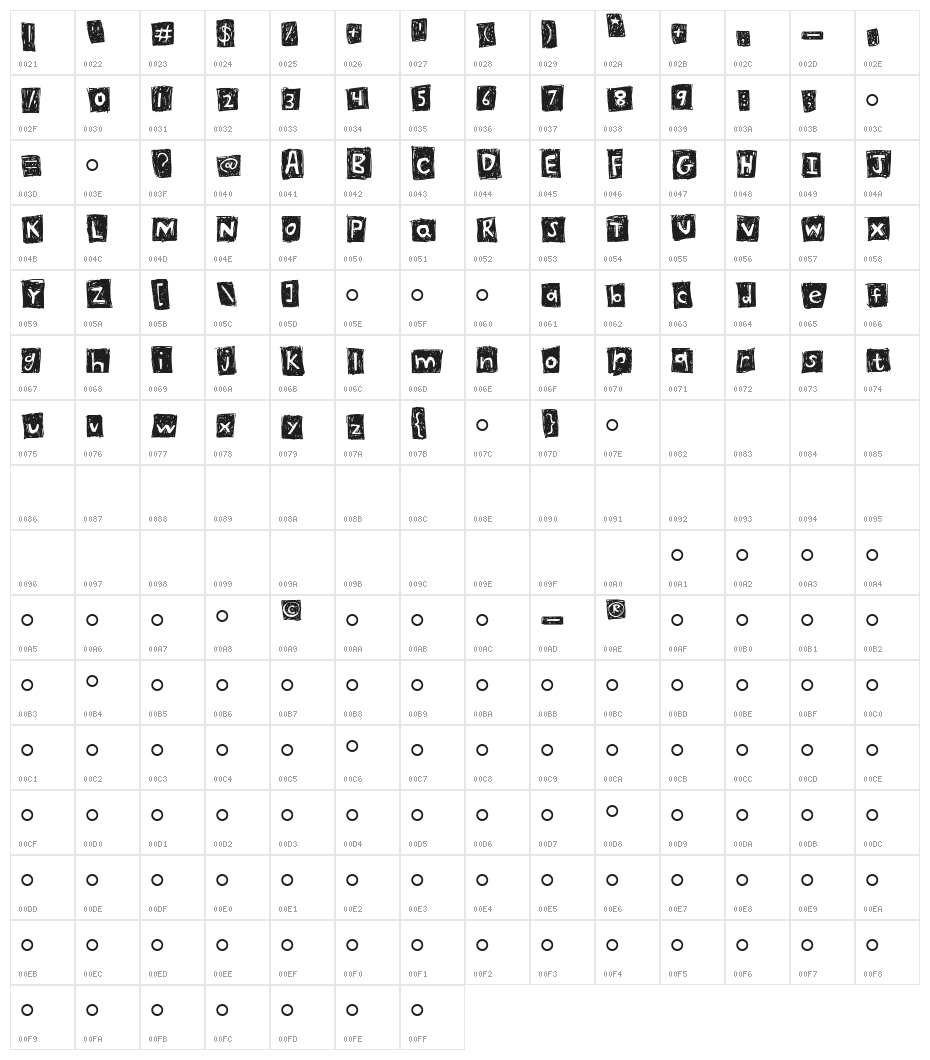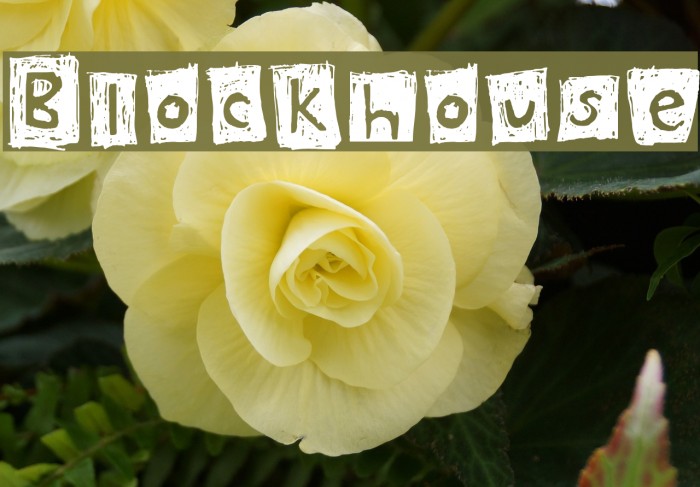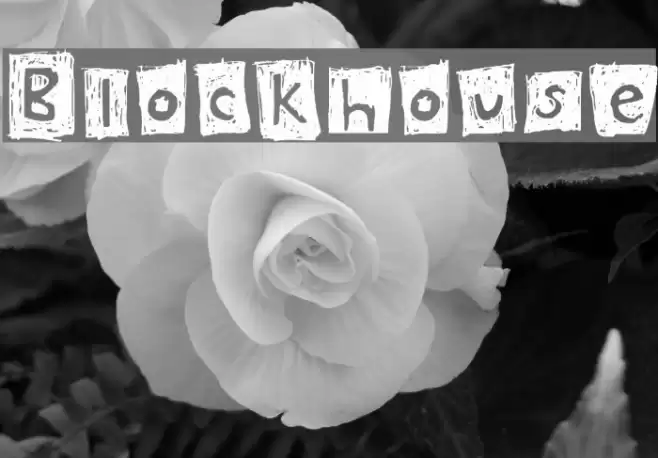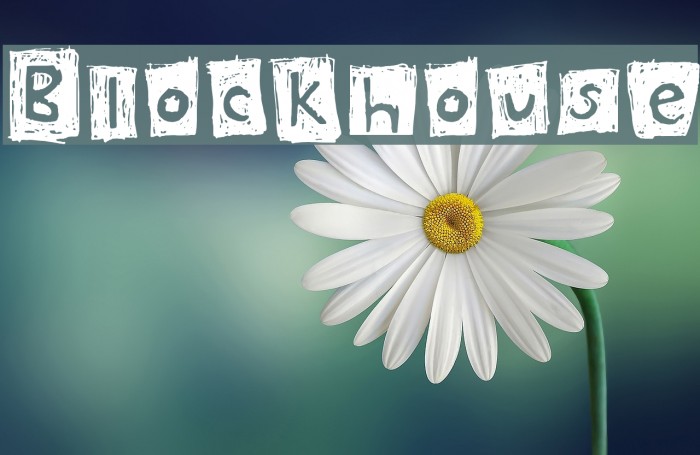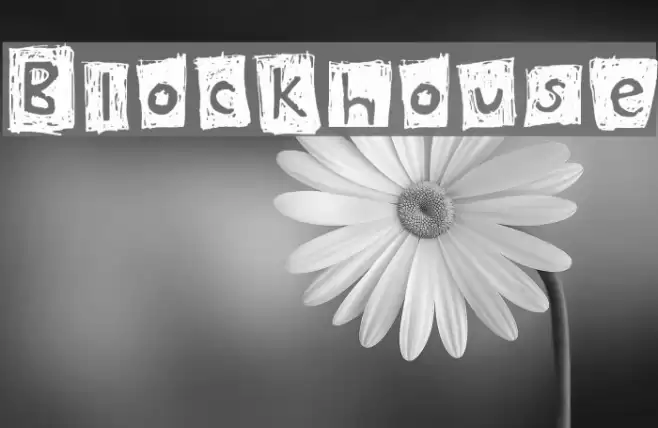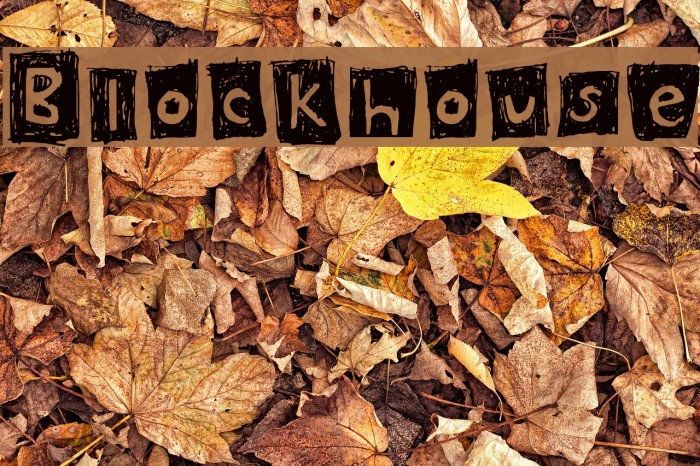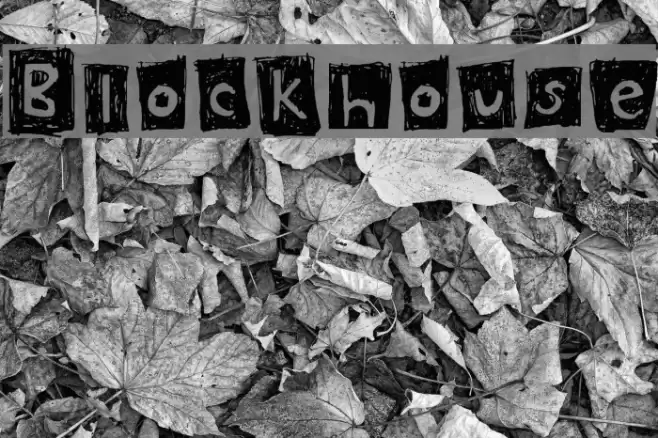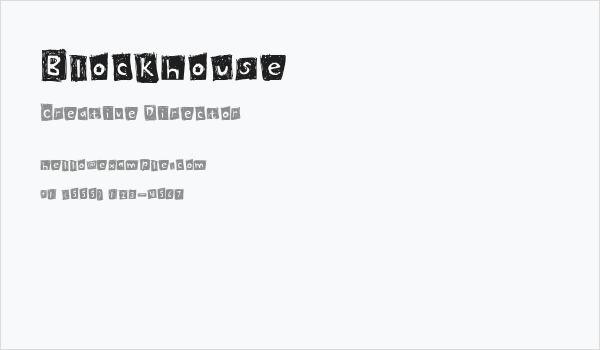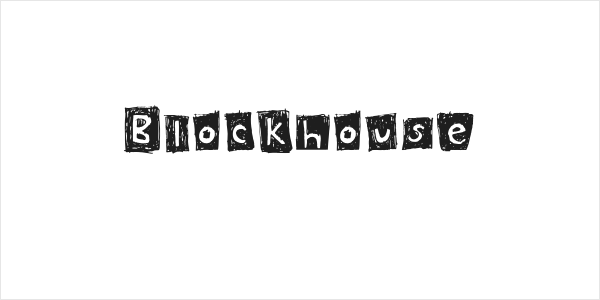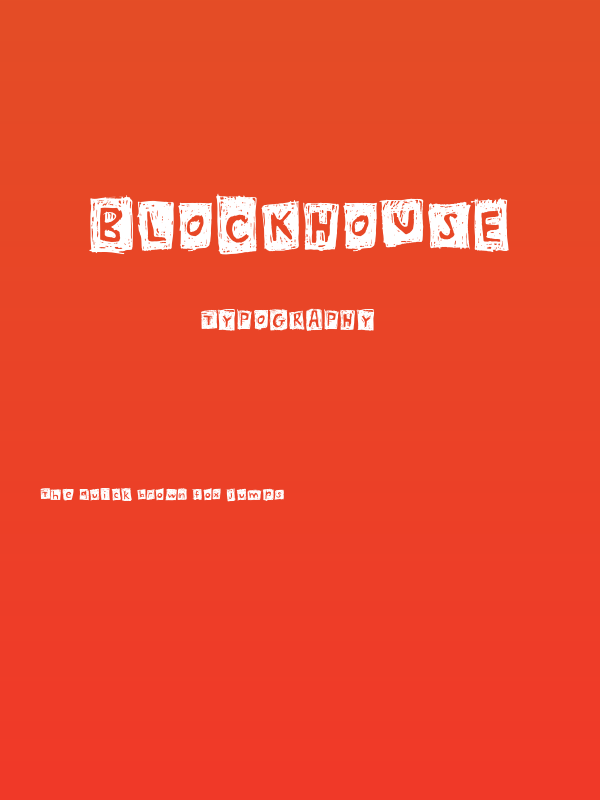
Blockhouse Font
Blockhouse Description
This font features a bold, hand-drawn style with each character enclosed in a rough, textured square. The letters have a playful and artistic appearance, reminiscent of a block print or a stamp. The irregular edges and varying line thicknesses give it a dynamic and informal look, making it stand out as a decorative choice. The uppercase and lowercase letters maintain a consistent style, with numbers and special characters following the same design theme. This font is ideal for projects that require a creative and unique touch.
| Proposed Projects | Perfect for posters, album covers, children's books, and creative branding projects. |